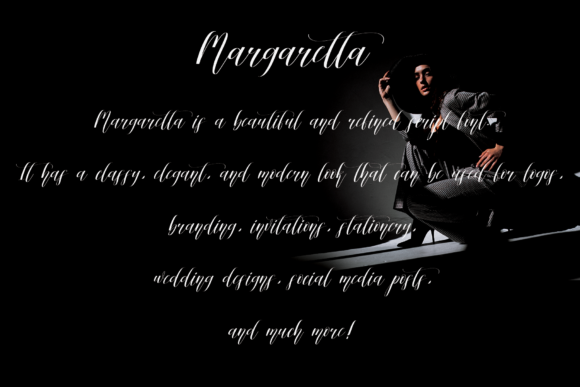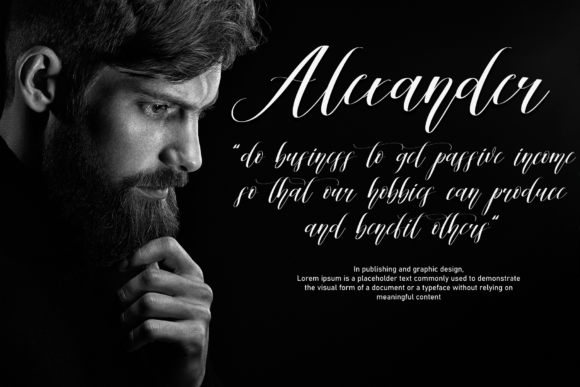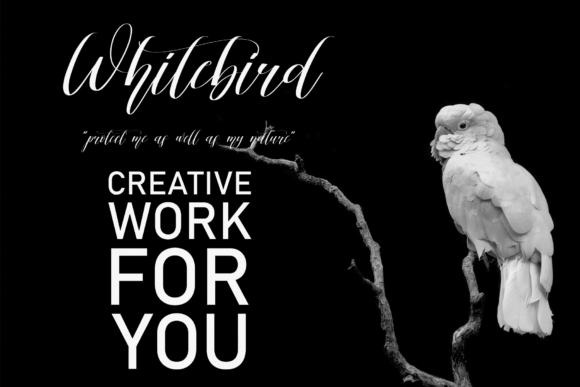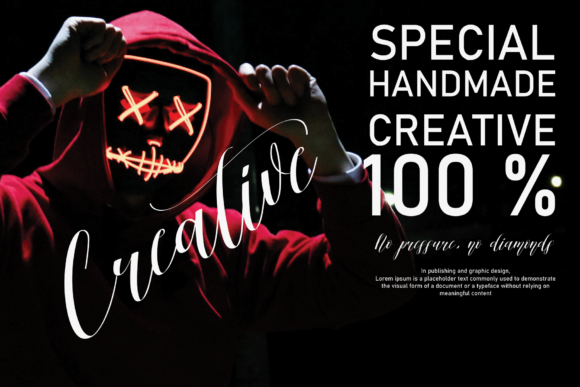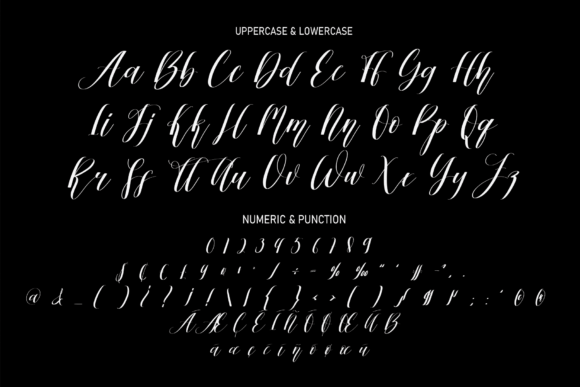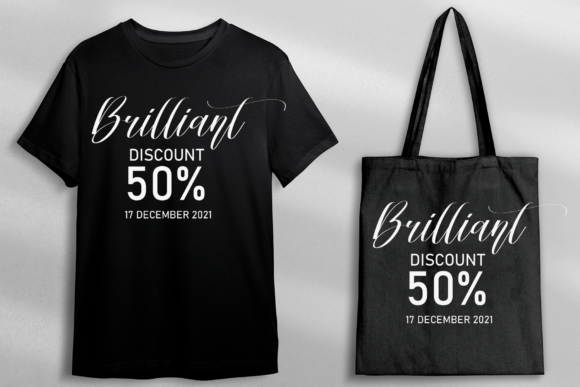
Introduction to Margaretta Font
Do you remember the moment when a font choice turned a simple design into a breathtaking masterpiece? For many of us, it’s the spark that ignites our creative passion. Today, we’re excited to introduce you to the Margaretta Font, a magical script font that will elevate your DIY projects, social media graphics, and design endeavors to new heights.
As a valuable resource for designers, the Margaretta Font offers a unique blend of elegance and sophistication, making it perfect for a wide range of creative projects. Whether you’re working on a high-quality design or a simple Instagram post, this font is sure to add a touch of class and refinement. With its transparent background and free download option, you can easily incorporate it into your next project and unlock your full creative potential.
From calligraphy scripts to digital designs, the Margaretta Font is a game-changer for designers and creatives. Its high-quality design and versatility make it an essential resource for anyone looking to take their creative project to the next level.
Key Features of Margaretta Font
- Features a unique, elegant script style with subtle flair and sophistication.
- Designed to be highly legible at various font sizes and resolutions, making it suitable for a range of creative applications.
- Supports various languages, making it a versatile design resource for international creative projects.
Honest Review: Margaretta Font
One of the things that works well for Margaretta Font is its high quality and versatility. The font comes in a range of styles and weights, allowing me to customize my design to fit the tone and mood I’m aiming for. I particularly appreciate the transparent background feature, which makes it easy to layer and manipulate the text in my design.
- ✨ High-quality font with a range of styles and weights
Overall, I’m impressed with the Margaretta Font and would recommend it to anyone looking for a high-quality font for their creative project. While it’s not perfect, its strengths far outweigh its limitations, making it a valuable addition to my design resources.
Using Margaretta Font in Creative Projects
Getting the Most Out of Margaretta Font
To get the most out of the Margaretta Font, experiment with different font sizes, colors, and styles to find the perfect combination for your design. You can also use the font in conjunction with other design resources to create a unique and eye-catching visual identity.
Common Use Cases for Margaretta Font
The Margaretta Font is suitable for a wide range of creative projects, including:
- Business cards and stationery
- Infographics and presentations
Alternatives to Margaretta Font
The Great Vibes Font is a high-quality, elegant script font suitable for creative projects such as wedding invitations, branding materials, and packaging designs. It features a transparent background, making it ideal for overlaying on images. Great Vibes Font is a versatile design resource that can be used for various purposes, from formal to casual events.
When to use: Wedding invitations, branding materials, packaging designs, and any creative project requiring an elegant touch.
Comparison to Margaretta Font: Great Vibes Font is more elegant and sophisticated than Margaretta Font, making it suitable for formal events and high-end designs.